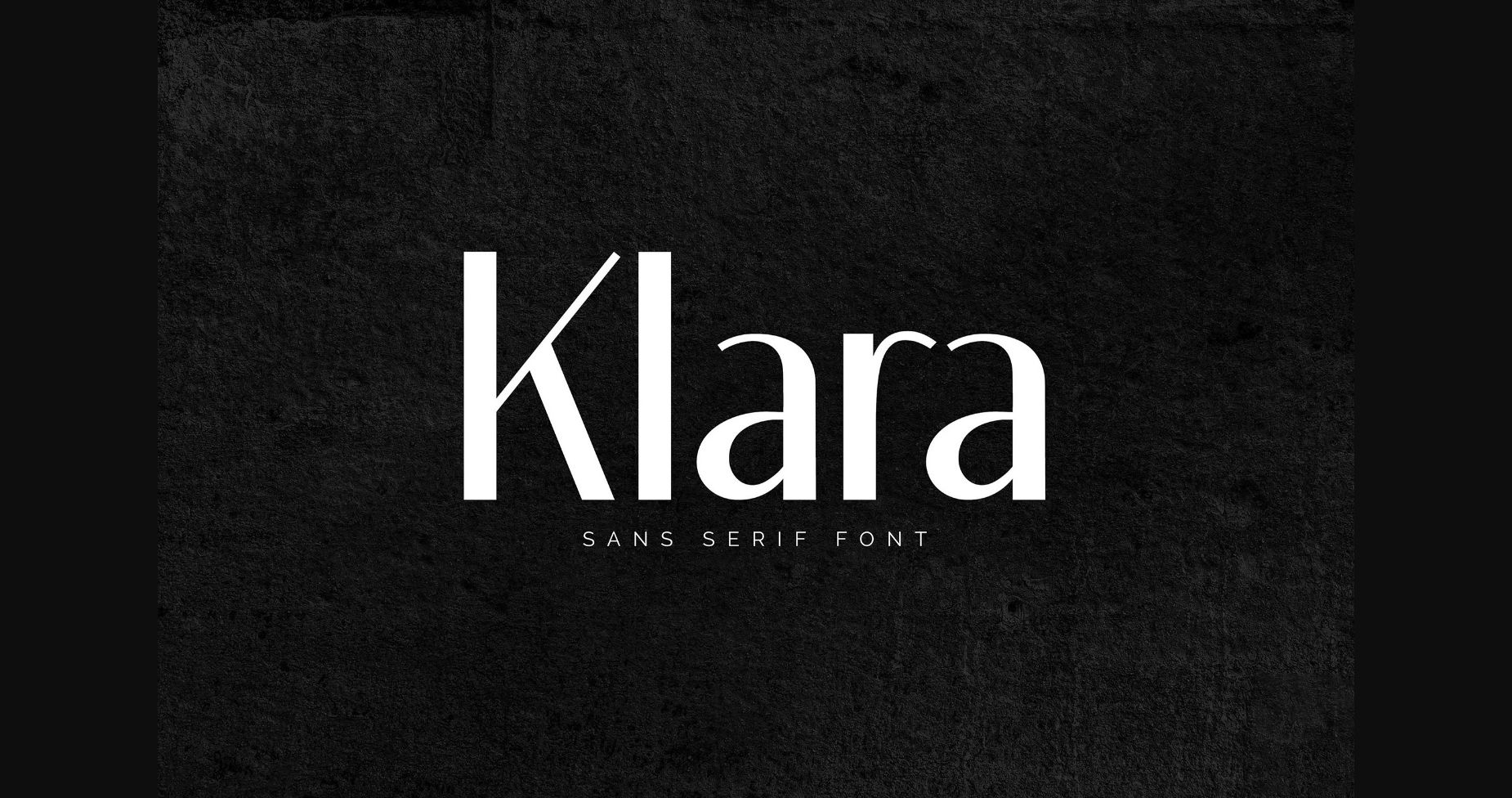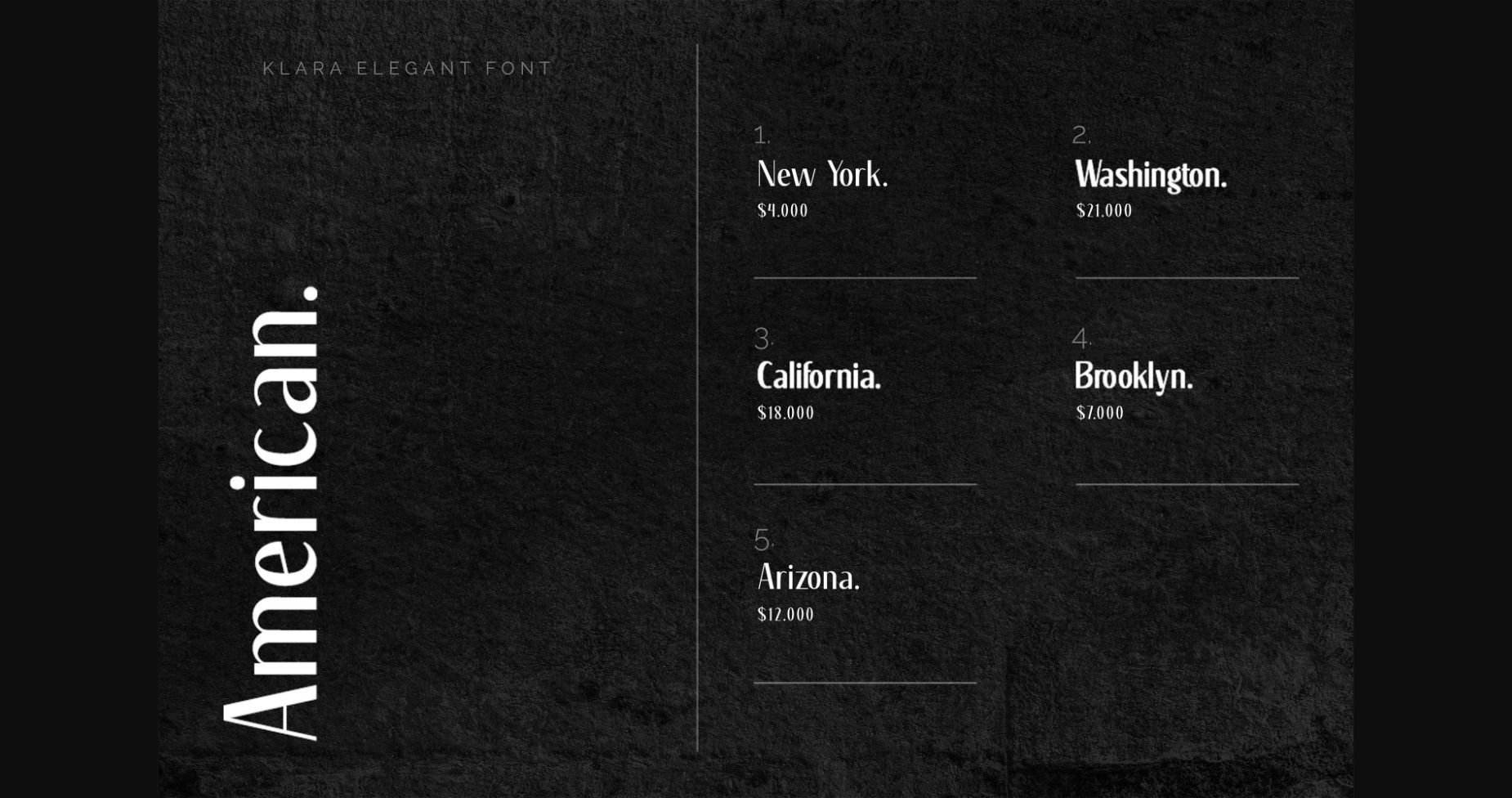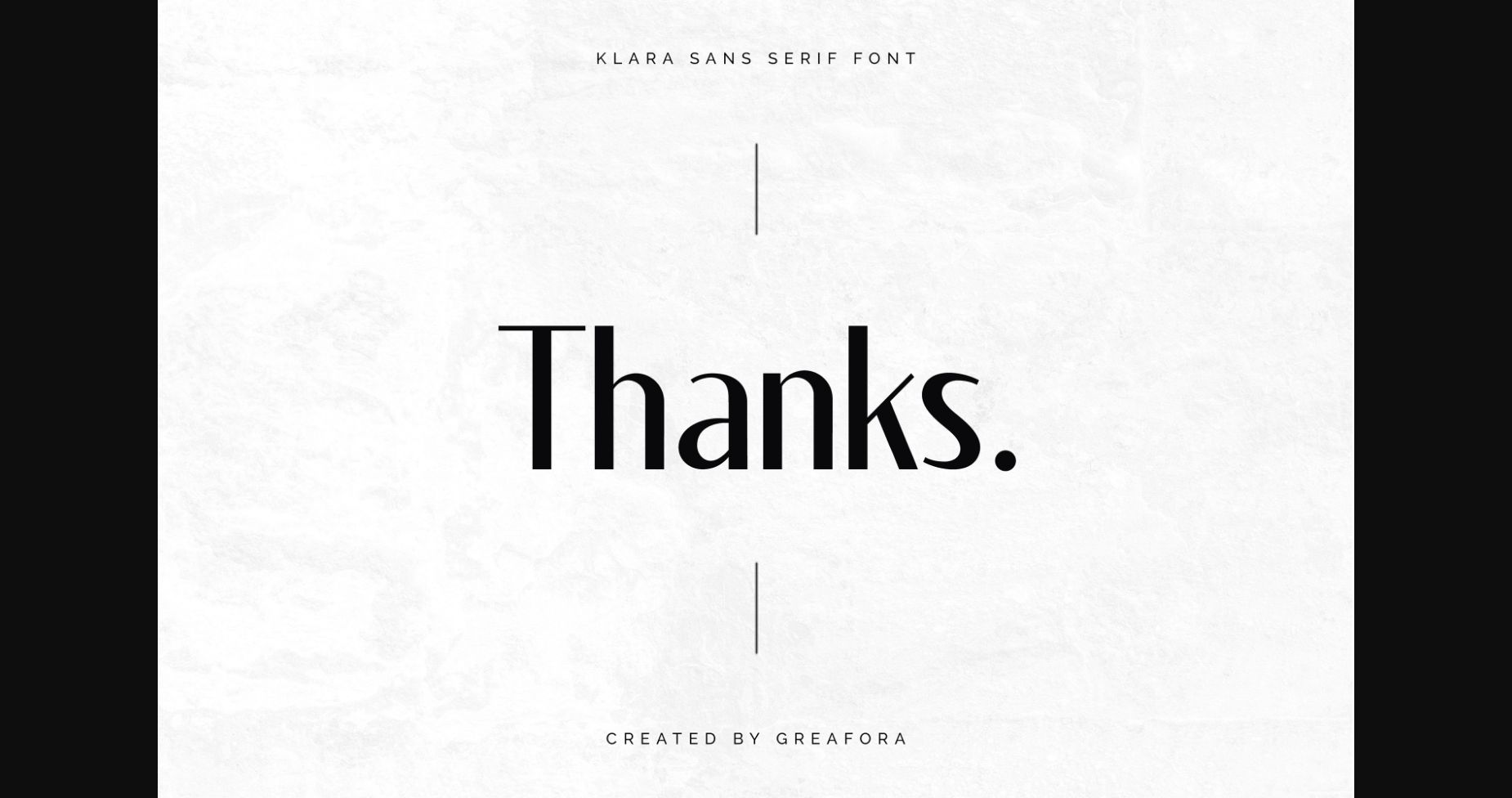
About Klara Font
Klara is an elegant and simple lettered sans serif font. It can easily be matched to an incredibly large set of projects, so add it to your creative ideas and notice how it makes them stand out!